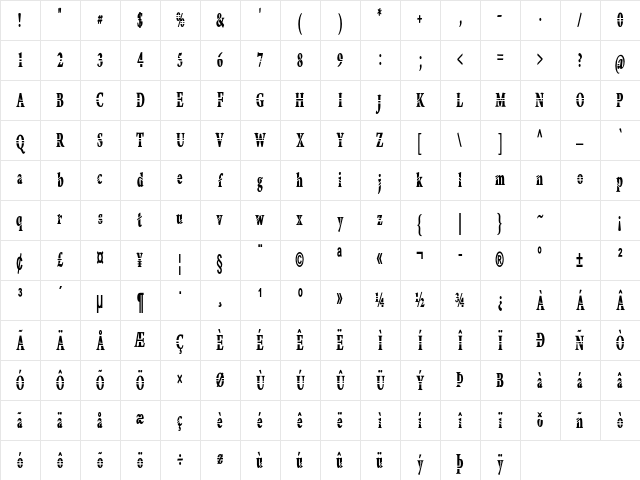
Manasmo Extra-condensed Bold
Style: Extra-condensed Bold
Manasmo Family
Manasmo Extra-condensed Bold
Design Context for Manasmo
Manasmo is a composed and adaptable typeface that performs quietly and consistently across a wide range of design contexts. Its bold stroke weight gives it real presence on the page. Its narrow stance lets it pack a punch even in space-constrained designs.